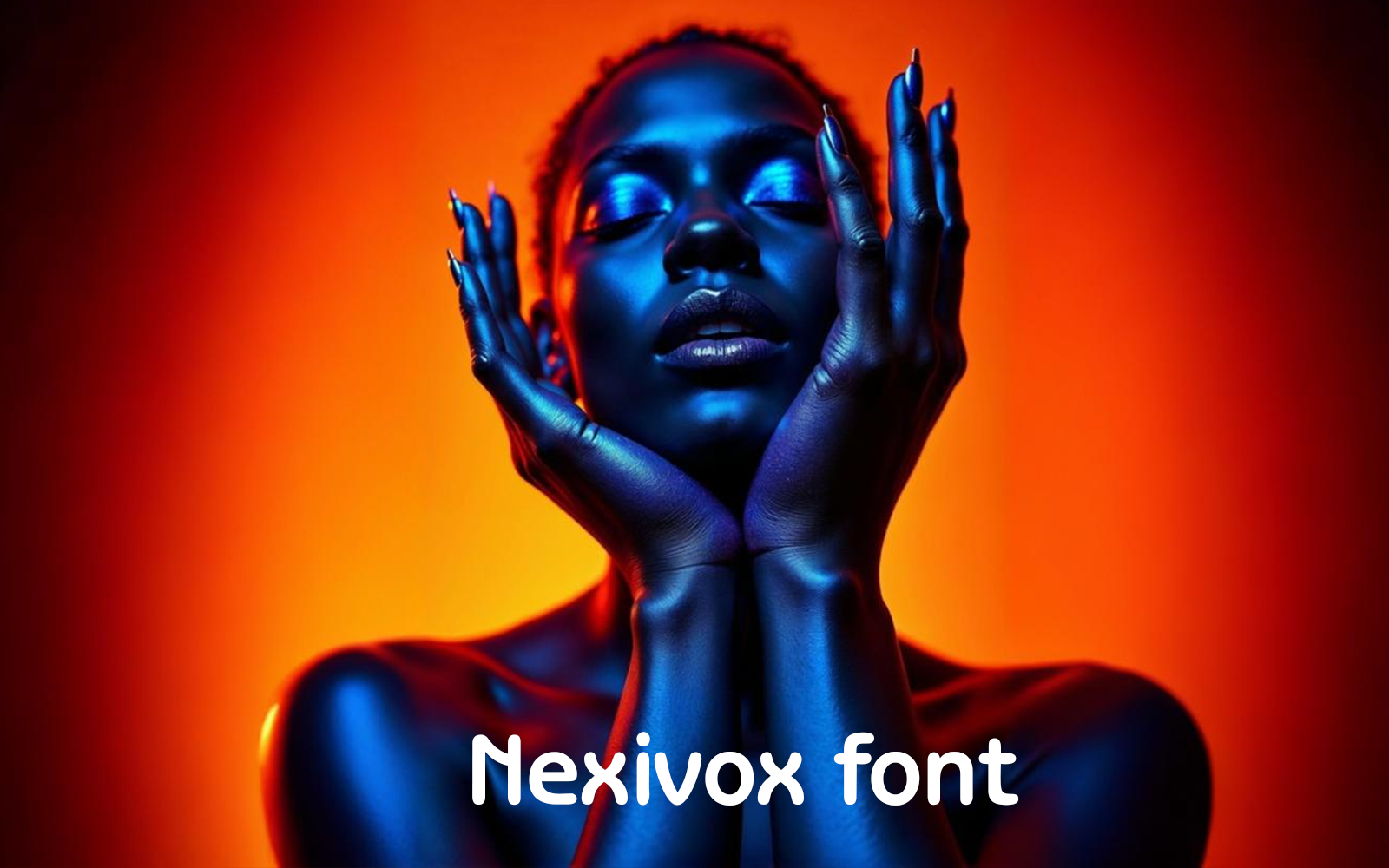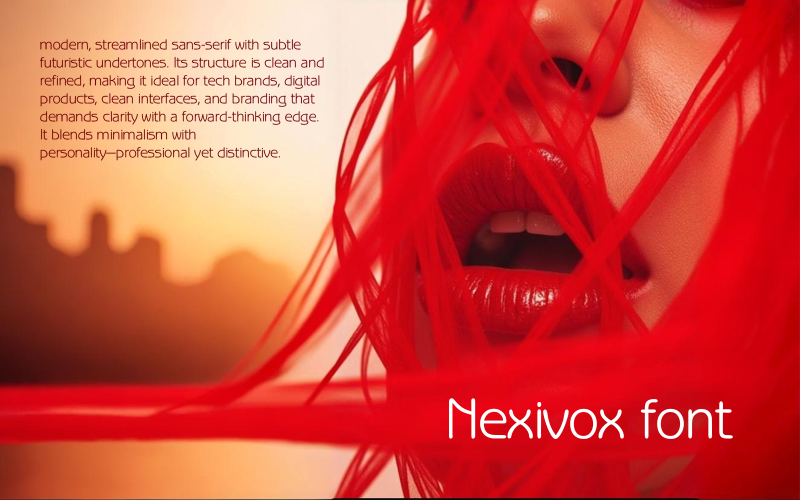
Welcome Nexivox a sans-serif that balances future-forward design with functional clarity.
Its sleek curves and minimalist precision make it a natural fit for innovation-led brands.
From UI to brand voice, every character speaks with quiet confidence.
Perfect for tech, clean visuals, and content that matters.
Nexivox: Modern design. Maximum clarity.